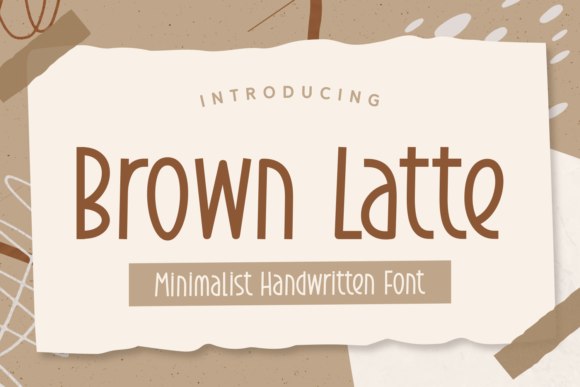
Unleash the Essence of Simplicity: Brown Latte - A Minimalist Script Font for the Modern Creative
Introducing Brown Latte, a stunning minimalist script font that captures the essence of modern simplicity. Crafted with precision and elegance, this font family exudes a timeless charm, perfect for adding a touch of sophistication to your creative projects.
Embark on a Journey of Minimalist Beauty:
Brown Latte is more than just a font; it's an artistic expression of minimalism, inviting you to explore a world of clean lines, delicate curves, and understated elegance. Its carefully crafted characters evoke a sense of serenity and tranquility, making it the ideal choice for projects that demand a touch of understated beauty.
Elevate Your Designs with Grace and Finesse:
With Brown Latte, you'll effortlessly elevate your designs to new heights. Its versatile nature makes it suitable for a wide range of projects, from minimalist logos and branding elements to elegant invitations, social media graphics, and eye-catching posters. Let Brown Latte be your creative companion, guiding you towards designs that exude sophistication and timeless appeal.
A Versatile Font for the Modern Maker:
Whether you're a seasoned designer or just starting your creative journey, Brown Latte is the perfect font to enhance your digital and print designs. Its clean and legible style ensures readability, while its distinct character adds a touch of personality to your work. From crafting stunning logos and branding materials to creating beautiful invitations and social media posts, Brown Latte is your go-to font for making a lasting impression.
A Touch of Warmth in a Digital World:
Brown Latte's warm and inviting aesthetic brings a touch of coziness to your digital creations. Its soft curves and gentle strokes evoke a sense of comfort and familiarity, making it the perfect choice for projects that aim to connect with audiences on a personal level. Whether you're creating a heartwarming blog post, designing a captivating social media campaign, or crafting a heartfelt invitation, Brown Latte will add a touch of warmth and charm to your message.
Empower Your Creativity with Simplicity:
With Brown Latte, you're not just downloading a font; you're unlocking a world of creative possibilities. Its minimalist style encourages you to focus on the essence of your message, allowing your creativity to shine through. Whether you're a seasoned designer or just starting out, Brown Latte will inspire you to create designs that are both visually appealing and emotionally resonant.